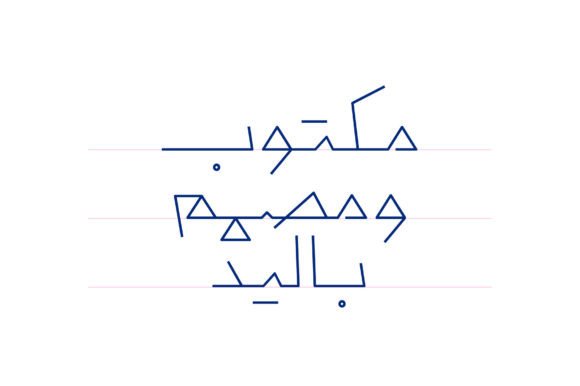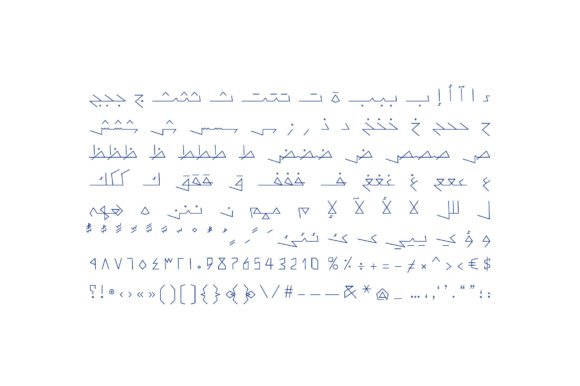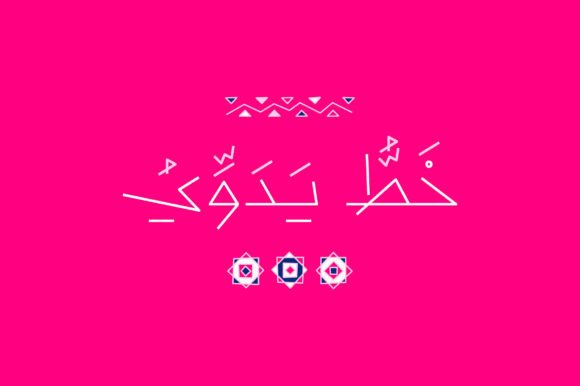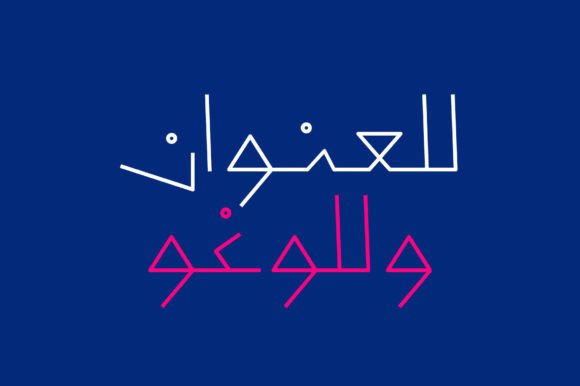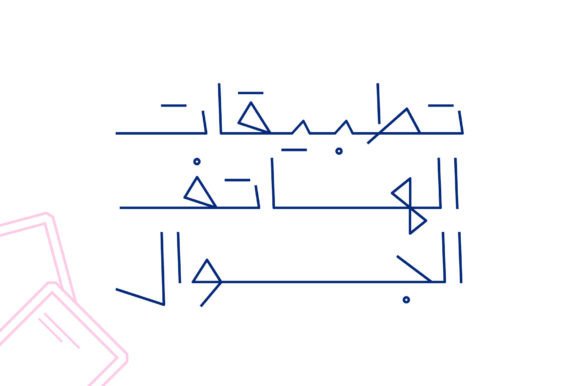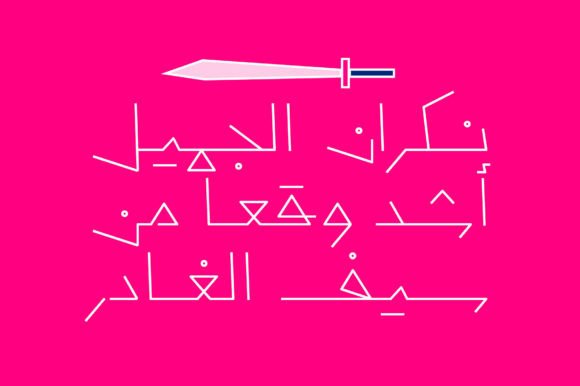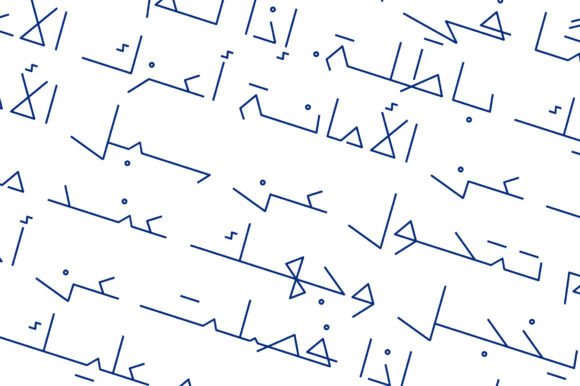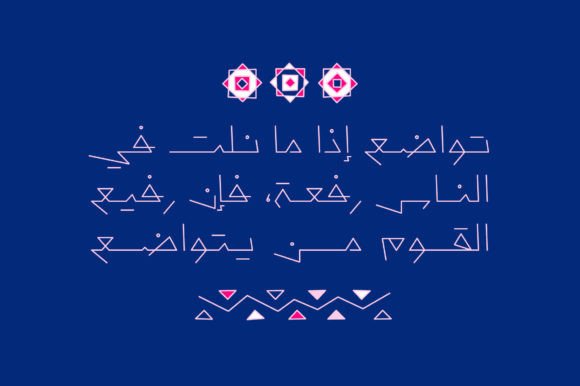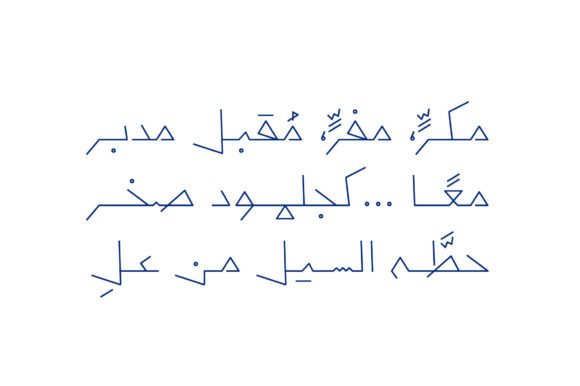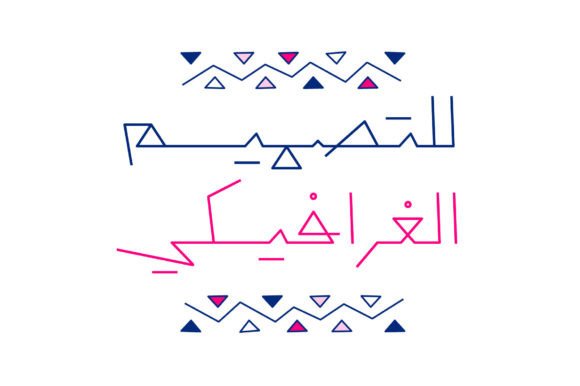
Yadawi Font
About Yadawi Font
“Yadawi,” which means “Handmade” in Arabic, is an Arabic display font that brings a unique and distinctive handwriting style to your designs. This font combines the beauty of Arabic calligraphy with a geometric structure, resulting in a visually engaging and versatile typeface. “Yadawi” is suitable for a wide range of applications, including web and print, and it is compatible with Windows, macOS, and mobile applications.
The letterforms in “Yadawi” are thoughtfully crafted to offer a balance between the fluidity of handwritten Arabic script and the geometric precision that makes it suitable for various design projects. This fusion of styles makes “Yadawi” a valuable asset for designers seeking to convey a sense of authenticity and creativity in their work.
In the world of design, fonts are instrumental in shaping the visual identity of a project and conveying cultural nuances. “Yadawi” excels in these aspects by offering an Arabic display font that combines the charm of handwriting with a geometric structure. Its aesthetics make it an excellent choice for projects that aim to celebrate Arabic language and culture.
In summary, “Yadawi” is more than just a font; it’s a visually captivating and culturally rich design tool that can enhance your creative projects with its unique blend of Arabic calligraphy and geometric precision. Whether you’re designing for web or print, “Yadawi” offers a versatile solution for bringing a touch of authenticity and handmade beauty to your designs while supporting Arabic language typography needs.